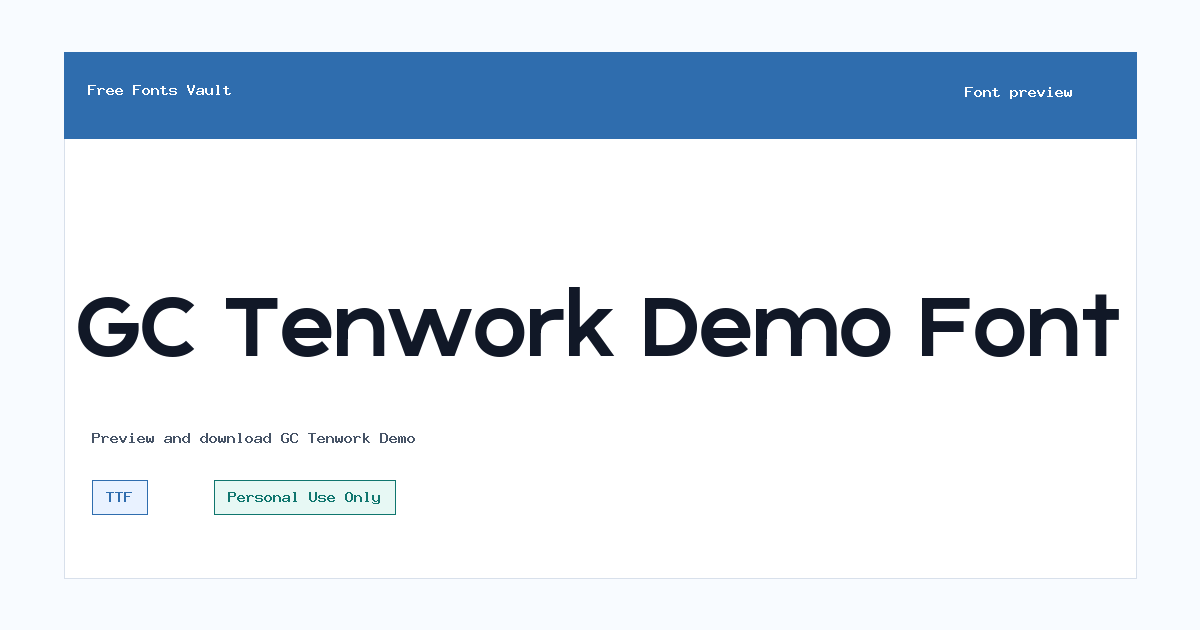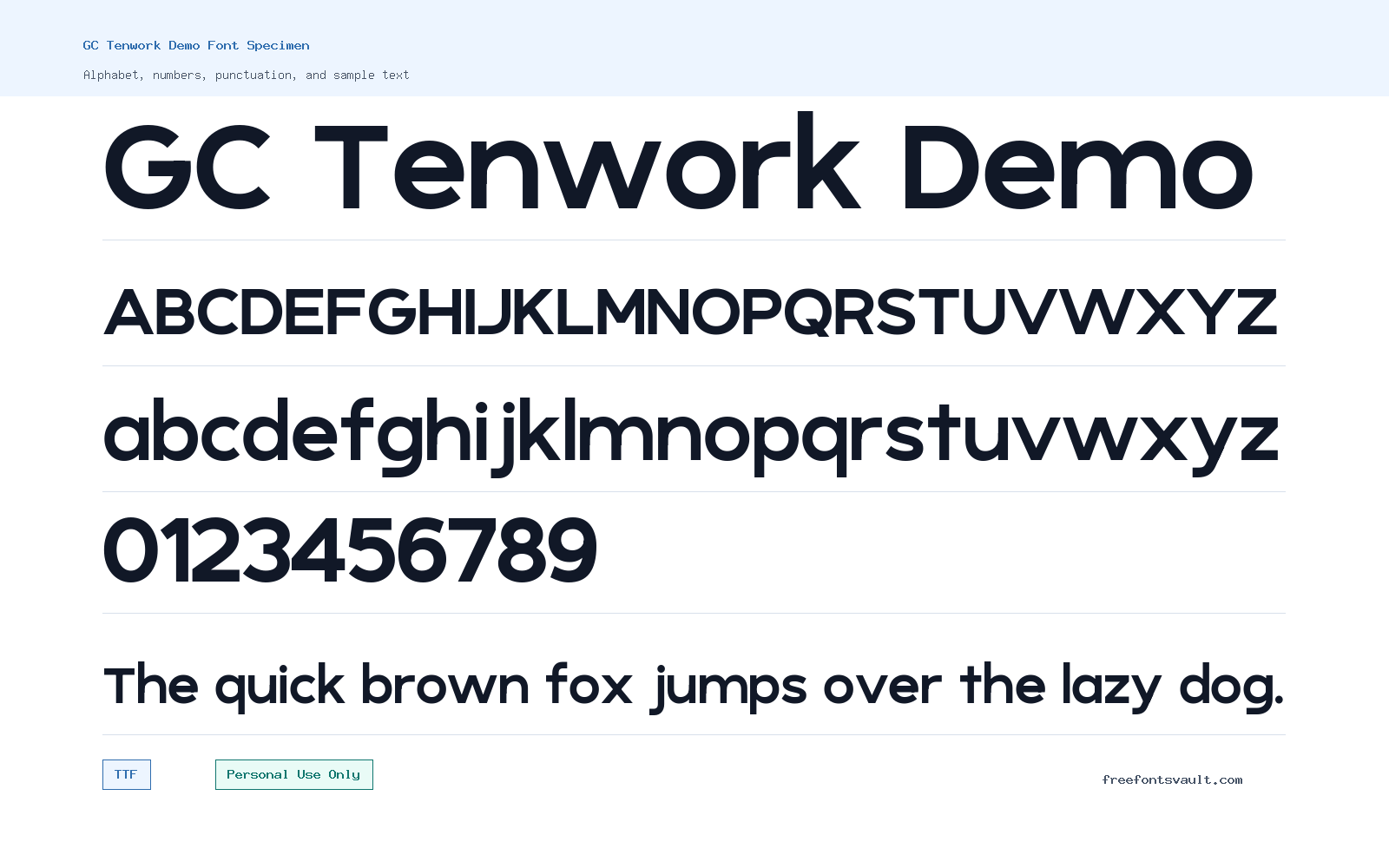
GC Tenwork Demo
GC Tenwork Demo font.
GC Tenwork Demo is a bold sans serif demo font from Glyphonic, offered in regular weight with both TTF and OTF font files. It is best treated as a display face for short, high-impact text rather than long paragraphs.
About GC Tenwork Demo
GC Tenwork Demo has a strong, clean sans serif look with heavy strokes, rounded curves, and compact spacing. The sample letters show a modern display style: wide enough to feel stable, but tight enough to make headlines feel solid and direct. The uppercase letters work well for short words, title lines, nameplates, poster headers, and simple branding mockups. The lowercase set keeps the same bold tone, with rounded forms that make the font feel less mechanical than a strictly geometric sans.
Because this is a demo font, use it with a little care. It can make strong first impressions in logo concepts, personal posters, social graphics, web hero mockups, thumbnails, stickers, and short editorial titles. It is not the safest choice for body text, small captions, dense menus, or long reading sections, because the heavy weight and close rhythm can become tiring at small sizes. For best results, test your actual words in the preview, check spacing around letters like G, C, T, W, a, g, and numerals, and add extra tracking if a word feels too tight.
For design work, GC Tenwork Demo pairs best with a calmer supporting typeface. Try a neutral sans serif for body copy, captions, navigation, or product details, and let GC Tenwork Demo handle only the main headline or focal word. If you are building a web mockup, use the font for large hero text and pair it with a lighter system sans such as Arial, Helvetica, Inter, or a similar readable UI face. In poster or logo studies, avoid using too many competing bold fonts beside it; one quieter companion usually gives the display type more room to stand out.
- Bold regular style with a clean sans serif structure
- Rounded letterforms that suit short display text
- Works best at larger sizes where the heavy strokes have room
- Good fit for personal posters, title graphics, and logo concept previews
- Personal logo concepts and wordmark studies
- Poster headlines and event-style title text
- Web hero mockups and landing page title concepts
- Social media graphics, thumbnails, and bold quote cards
- Short labels, stickers, packaging mockups, and display lettering tests
Use GC Tenwork Demo for short, bold text where clarity and impact matter. Keep line lengths short, avoid small body-copy sizes, and pair it with a simpler text font for paragraphs. If you are testing it for a logo or poster, preview the exact wording first and adjust spacing manually when letters feel too close.
What kind of font is GC Tenwork Demo?
It is a bold sans serif demo font with a clean, rounded display style. It works best for short text such as headlines, logo concepts, posters, and large web mockup titles.
Is this font good for body text?
It is better for display use. The bold weight and tight visual rhythm are useful for headlines, but they may feel heavy in paragraphs or small interface text.
Which font should I pair with GC Tenwork Demo?
Pair it with a simple, readable sans serif for body text and captions. A lighter neutral font will balance the bold display style without competing with it.